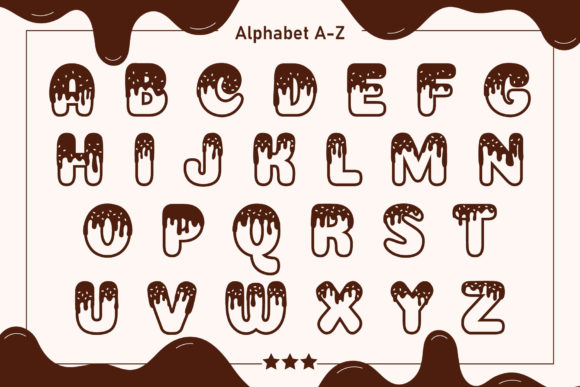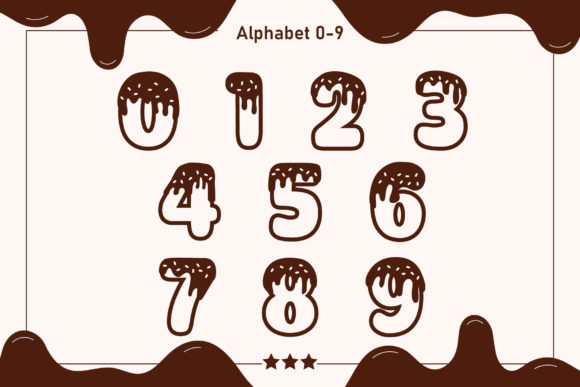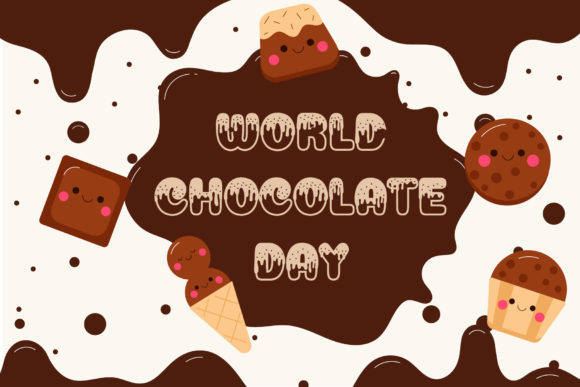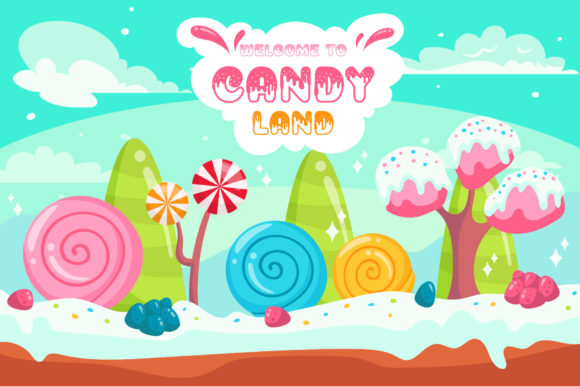
The Sweetest Typography: Donut Font Takes Center Stage
Have you ever found yourself rummaging through your design files, searching for the perfect font to bring your creative vision to life? That’s exactly what happened to me last week. I was working on a children’s book project and desperately needed a font that would capture the playful essence of my story. That’s when I stumbled upon the Donut Font, and let me tell you, it was love at first sight.
The Donut Font is a display font designed to add a touch of whimsy and fun to any design. Its adorable and quirky nature makes it perfect for children-themed designs, especially when paired with bright and bold colors. As a designer, you’ll appreciate the versatility of the Donut Font, which can be used for a wide range of projects, from branding and advertising to digital media and print materials.
Key Features of Donut Font
- Unique Characteristic: The Donut Font features a unique, playful design with rounded shapes and a donut-inspired aesthetic, making it perfect for creating eye-catching and whimsical designs.
- Kerning and Ligatures: The font includes advanced kerning and ligature features, ensuring smooth and professional-looking text at various font sizes.
Donut Font Review
At first glance, the Donut Font seems to be a playful and unique addition to any design project. Here are some things that work well:
- ✨ The font is indeed donut-shaped, making it perfect for designs that need a whimsical touch.
- ✨ It’s highly customizable, with a range of sizes and colors available.
- ✨ The font is relatively easy to use, even for those without extensive design experience.
- ⚠️ The font is not suitable for large blocks of text, as it can be difficult to read at larger sizes.
- ⚠️ The font is not supported by all devices or browsers, which may cause compatibility issues.
- ⚠️ The font’s unique shape can make it difficult to pair with other fonts, limiting its versatility.
In general, I think the Donut Font is a fun and creative option for designs that need a playful touch. While it’s not perfect, it’s a great choice for logos, social media graphics, or other small-scale designs where its unique shape can shine. Just be aware of its limitations and use it wisely.
Practical Application Guide for Donut Font
For a more realistic donut effect, use the font with a bold weight and a pastel color.
Experiment with different font sizes and colors to create a unique donut design.
Use the Donut Font to add a playful touch to your presentations or documents.
The Donut Font is perfect for:
- Bakery and food branding
- Creative and playful designs
- Children’s products and packaging
Remember to experiment with different font sizes, colors, and styles to get the most out of the Donut Font.